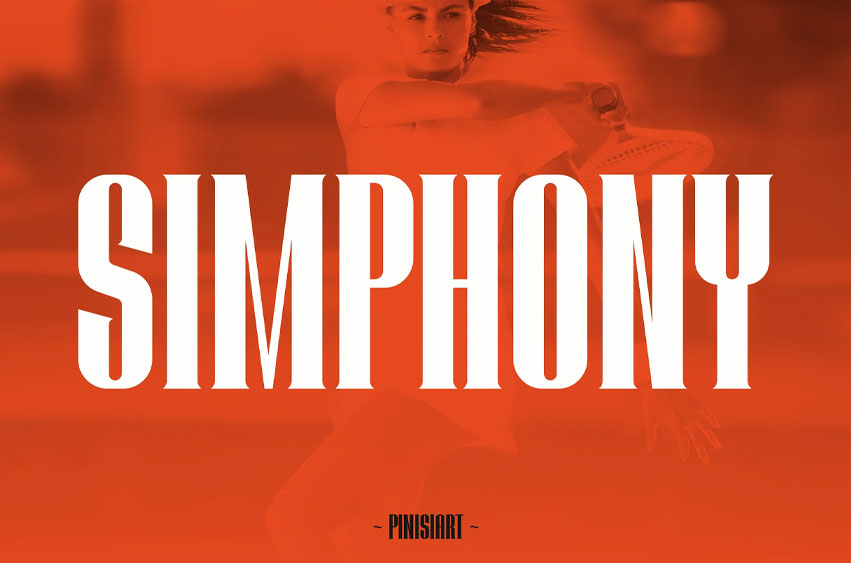
Simphony Font is a bold display typeface that blends elongated geometric proportions with strong vertical contrast, giving every word a sense of motion and authority. Its upright stance and striking terminals make it perfect for sport-related branding, editorial layouts, and high-impact posters. The font conveys strength, elegance, and modern dynamism, making it a standout choice for designs that demand attention.
Whether you’re creating a luxury sports campaign, editorial headline, or high-energy social media ad, Simphony delivers a statement of power and style. Its tall and confident letterforms are built to capture attention instantly, while its sharp geometry ensures clarity in both print and digital use. From tennis academies and golf clubs to lifestyle magazines and event branding, Simphony speaks with authority and sophistication.
- Bold Proportions – Designed with elongated vertical strokes for impactful visibility.
- Elegant Versatility – Works across sports branding, luxury promotions, and editorial layouts.
- Dynamic Personality – Balances elegance and strength for projects that need both beauty and impact.
- High Readability – Strong letter contrast ensures clarity at various sizes.
- Multi-Platform Usability – Perfect for print, digital, and social campaigns.